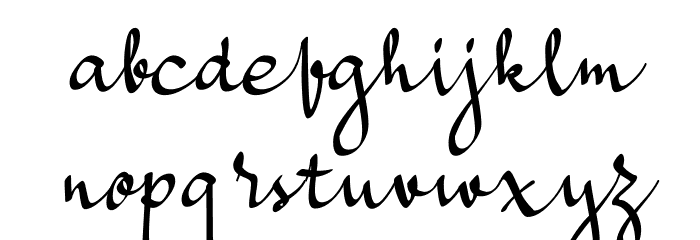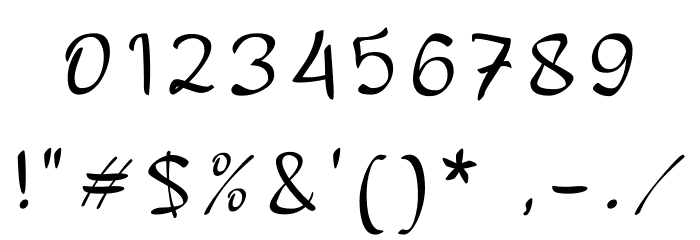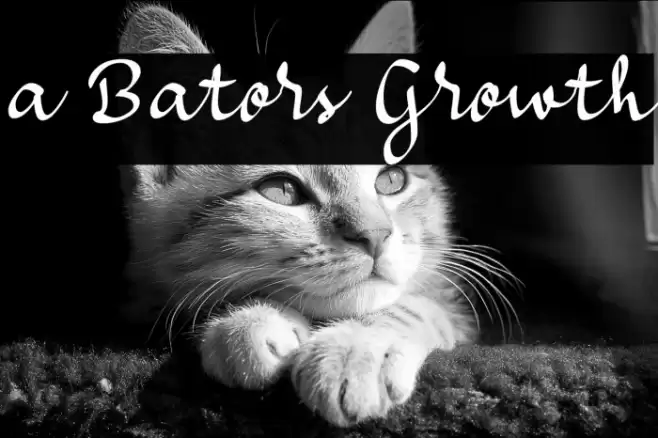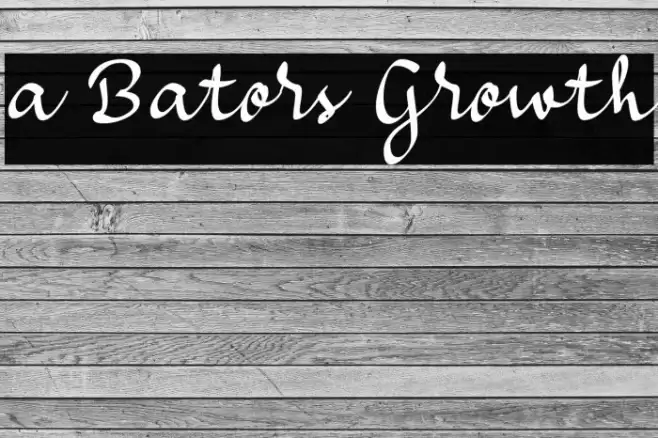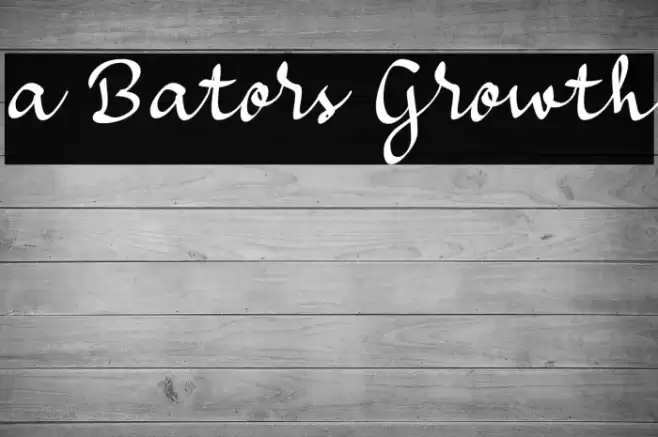
a Bators Growth Font
This elegant script font features a flowing, cursive style with a natural handwritten appearance. The letters are connected, creating a continuous and smooth line that enhances its fluidity. The uppercase letters are slightly larger and more ornate, while the lowercase letters maintain a consistent rhythm and balance. The numerals and special characters complement the alphabet with similar curves and strokes, adding to the overall cohesive look. This font exudes a sense of sophistication and grace, making it suitable for projects that require a personal touch.
A flowing, cursive script font with a natural handwritten style.
- Proposed Projects: Ideal for wedding invitations, greeting cards, personal branding, and elegant packaging designs.
- Overall Style: Elegant, Handwritten
- Use Case: Logos, Invitations, Personal Branding